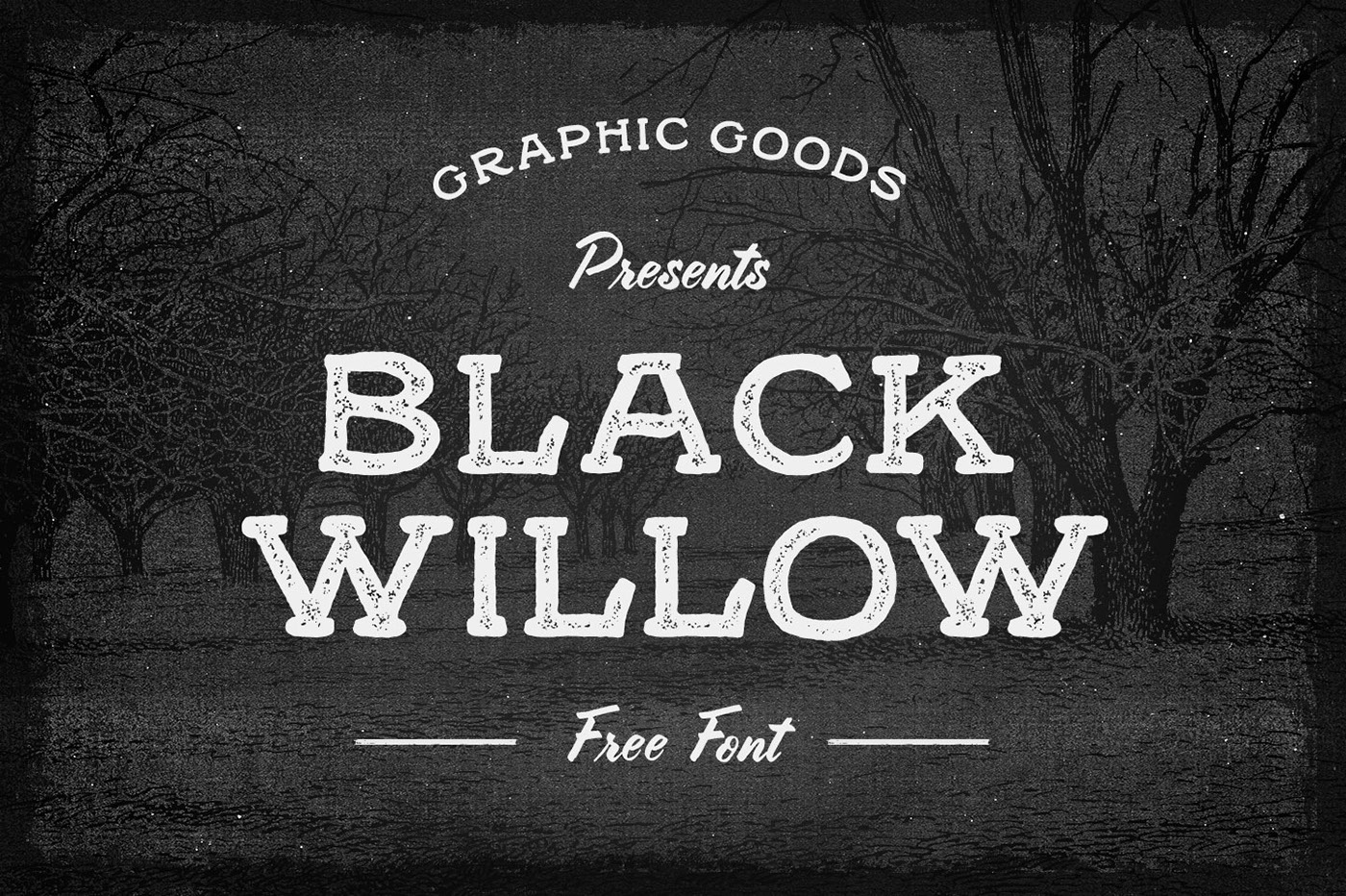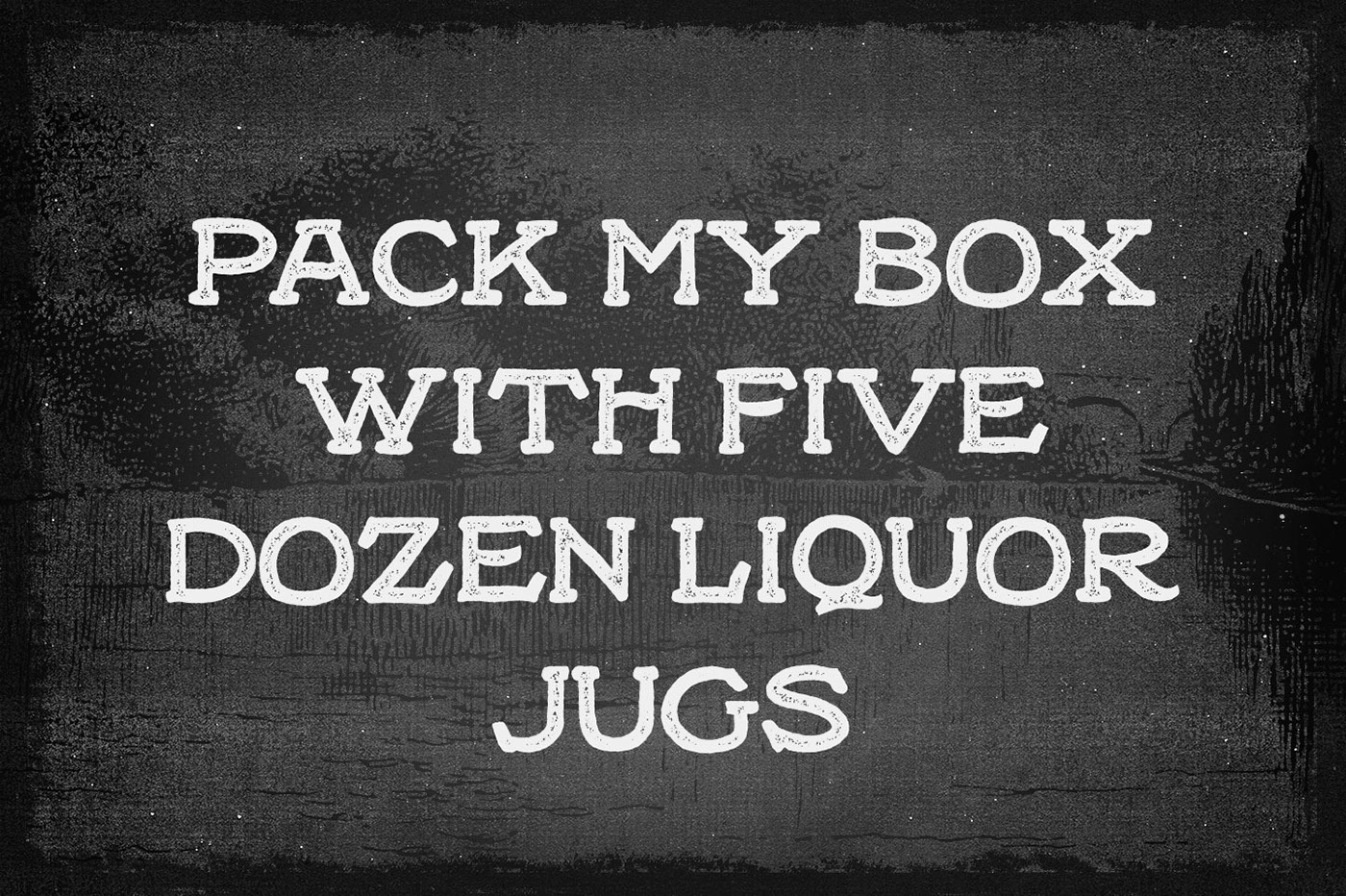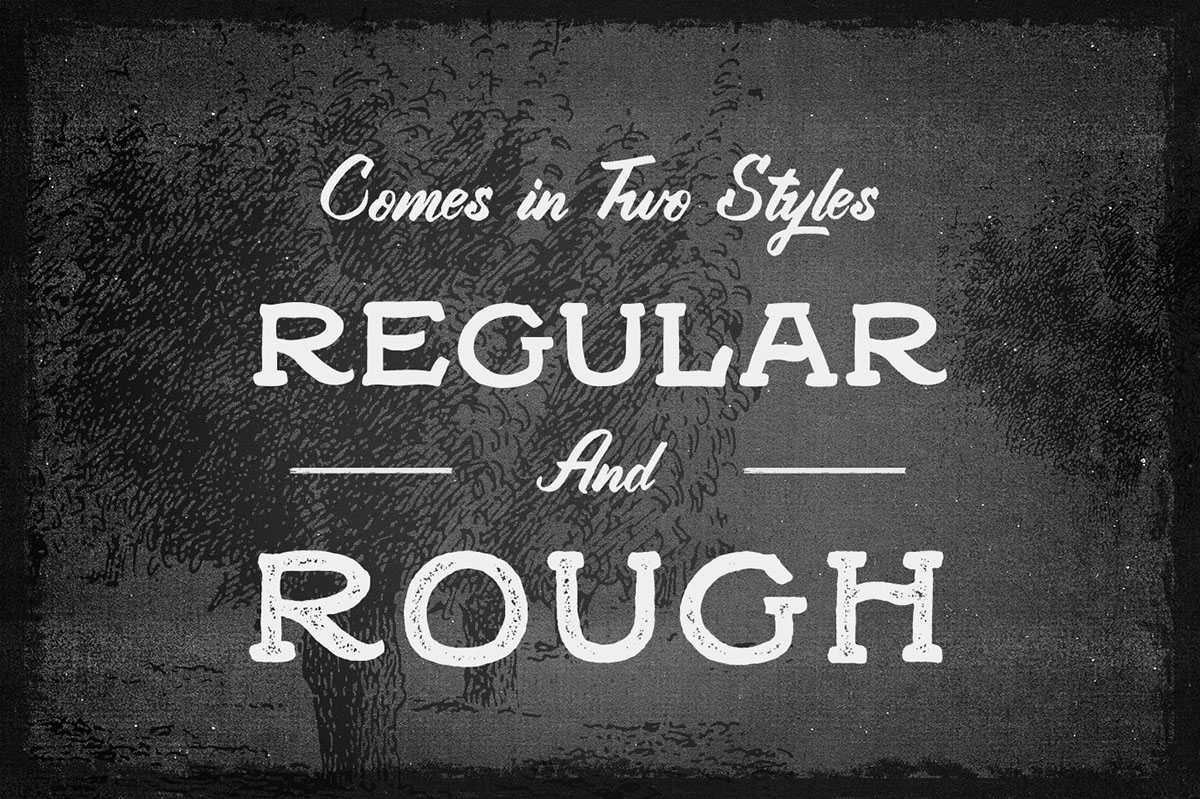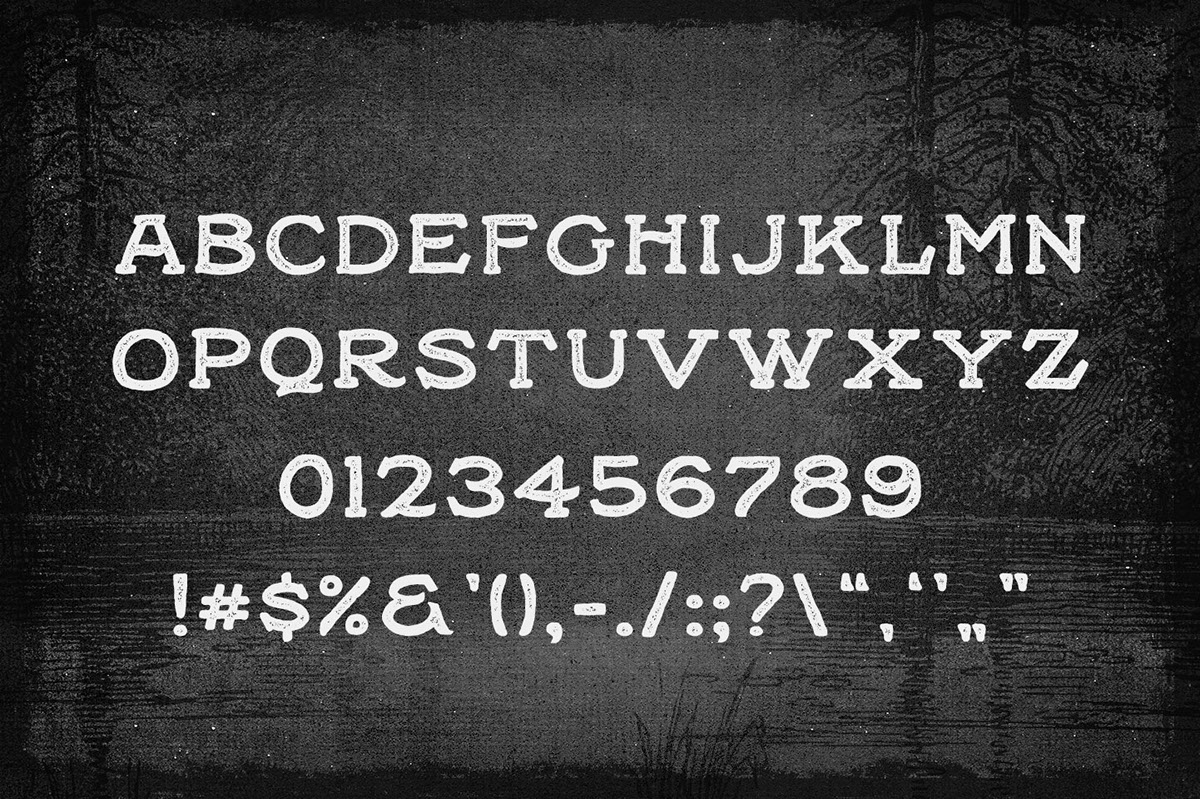
Black Willow is a free rustic font inspired by vintage handrawn signs and showcards lettering. The font was created by GraphicGoods and it comes in two styles – Regular and Rough.